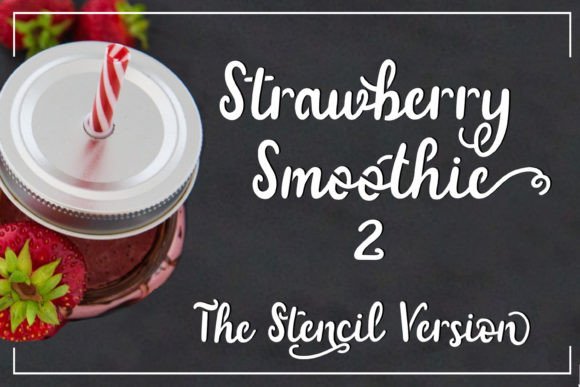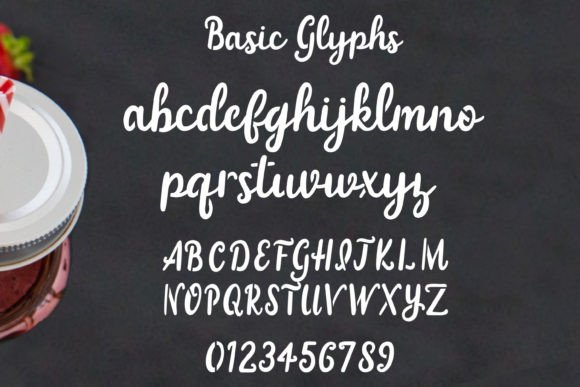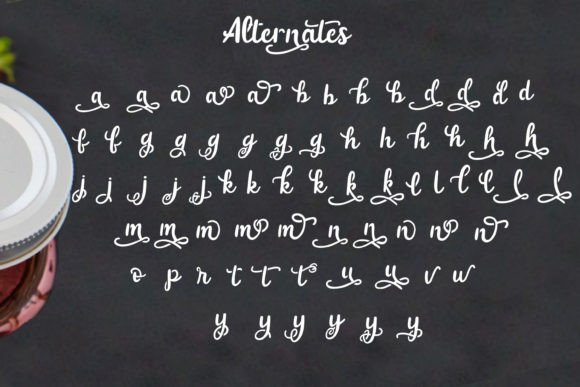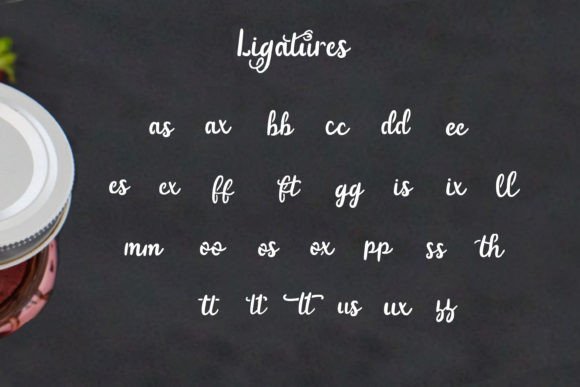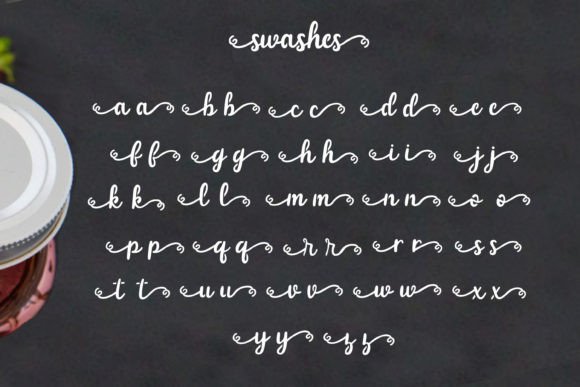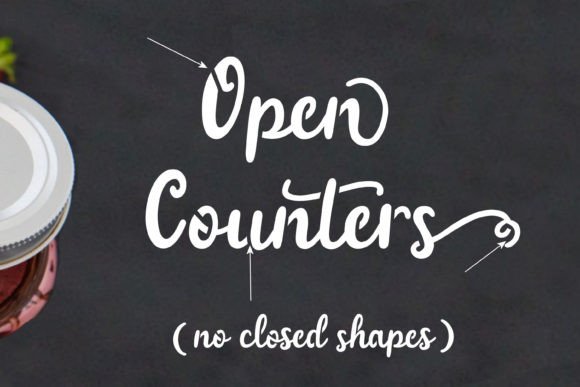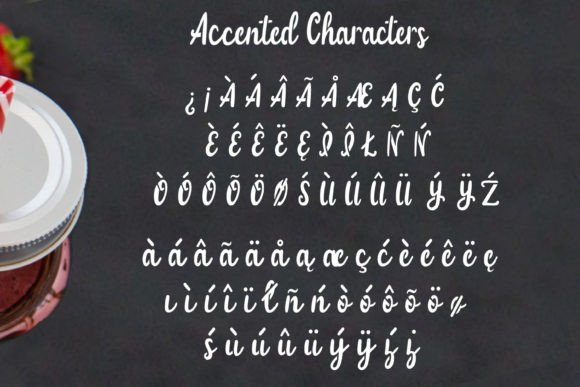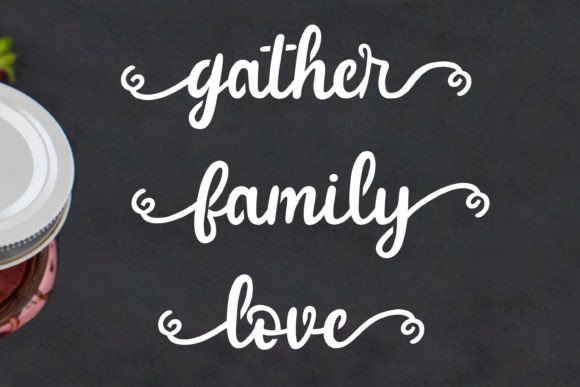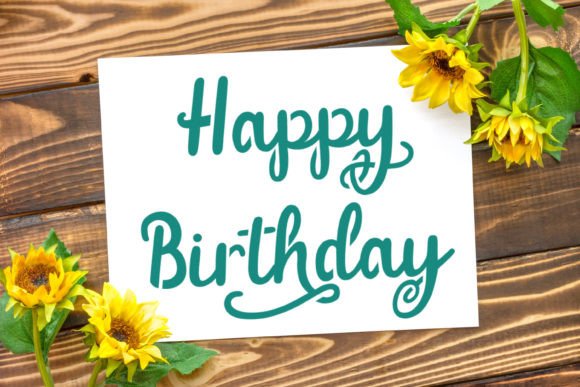
Strawberry Smoothie Font
Strawberry Smoothie is a hand-lettered script font. Strawberry Smoothie has all open counters which means there are no closed shapes. It’s perfect for stencil and vinyl projects.